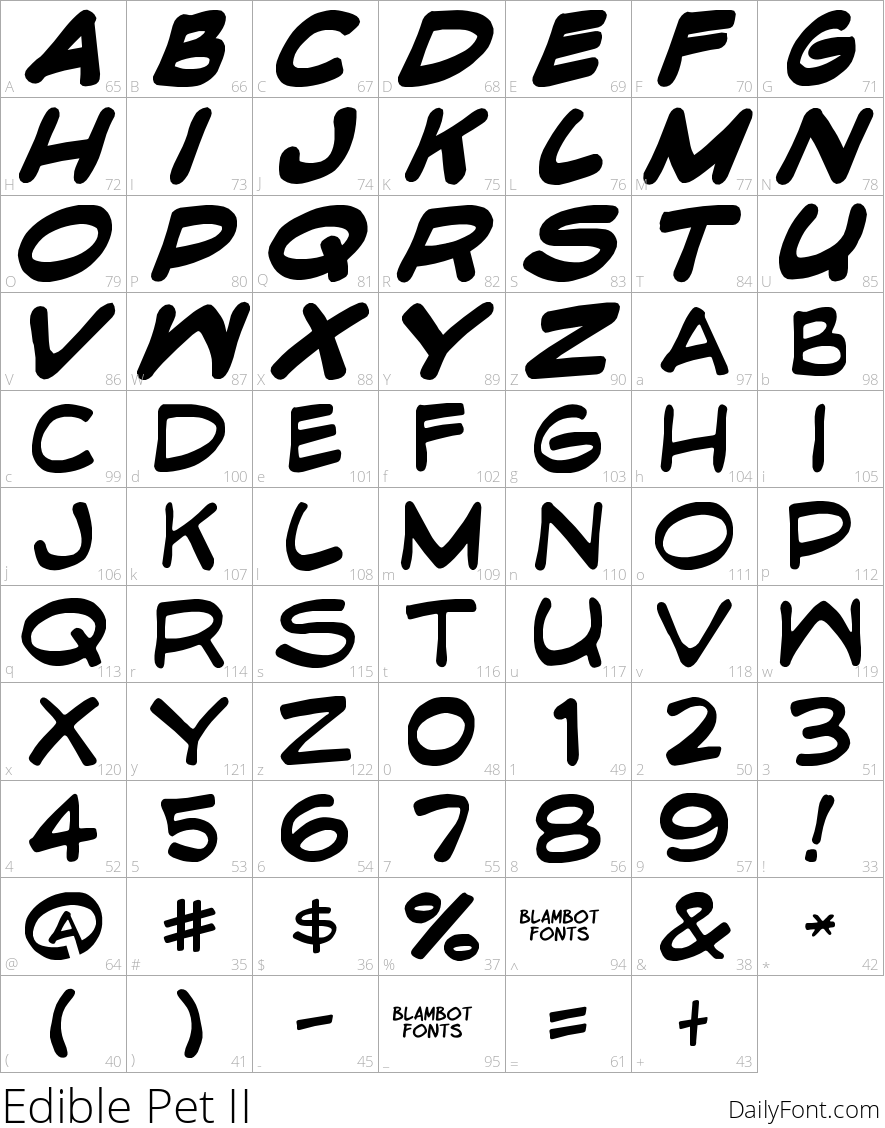
Edible Pet II
Loose, bold marker caps for casual playful headlines
Edible Pet II is drawn with thick, confident marker strokes and a loose, comic-book energy, reading like hand-lettered speech bubbles rather than a formal typeface. It stays bold and legible while keeping a playful, casual edge.
Use it for comic strip lettering, playful pet and veterinary branding, casual poster titles, and any design that wants a bold, hand-drawn comic feel. Free to download for personal use.